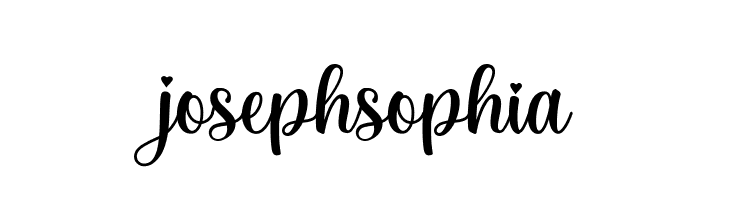
A modern, elegant script font with flowing, cursive characters.
A flowing, cursive font with elegant loops and swashes, perfect for creative designs.
A playful and elegant script font with fluid, cursive strokes.
An elegant script font with flowing, interconnected letters and ornate flourishes.
A modern, elegant script font with flowing, cursive characters and medium contrast.
A lively and expressive script font with flowing, cursive letterforms.
A casual, handwritten font with a dynamic and flowing style.
A flowing, elegant script font with a handwritten aesthetic.
An elegant, flowing script font with graceful curves and sophisticated flair.
A graceful script font with elegant, flowing characters and refined swashes.